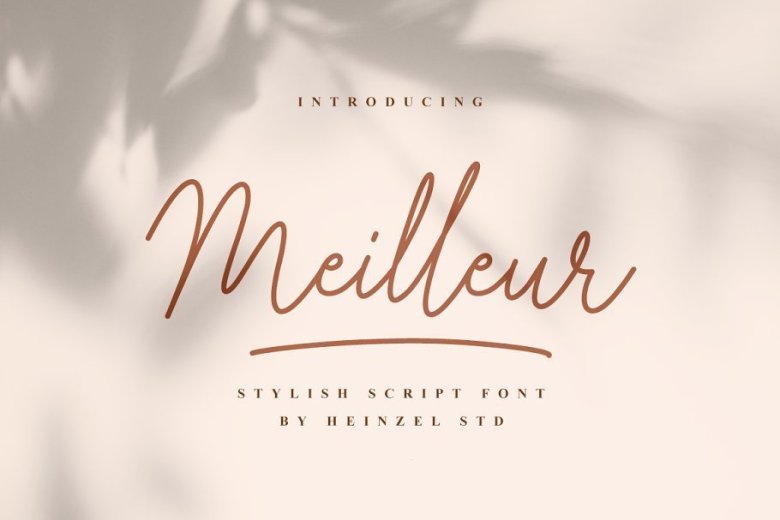
Meilleur Handwritten Script Font
Meilleur Script Font is a flowing handwritten font, described by an elegant touch, perfect for your favorite projects. Fall in love with its incredibly distinct and timeless style and use it to create spectacular designs!
Meilleur would perfect for photography, watermark, social media posts, advertisements, logos & branding, invitation, product designs, label, stationery, wedding designs, product packaging, special events or anything that need handwriting taste.